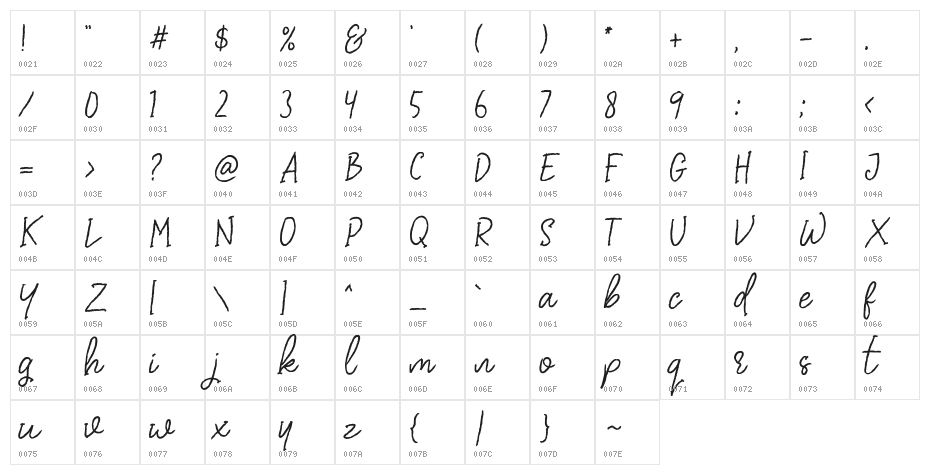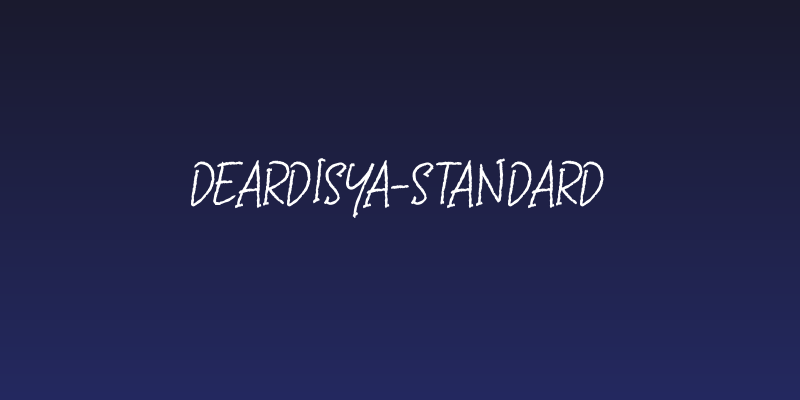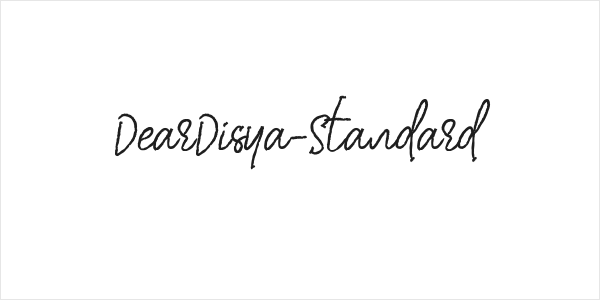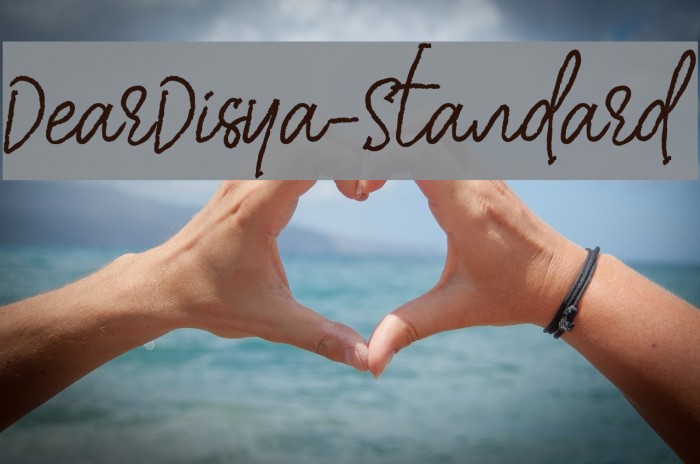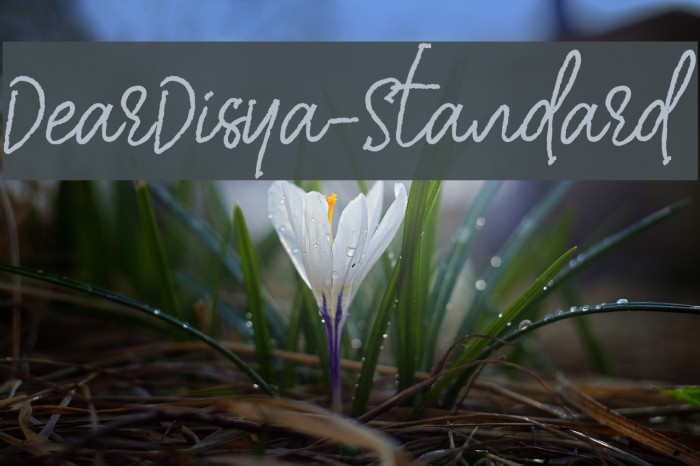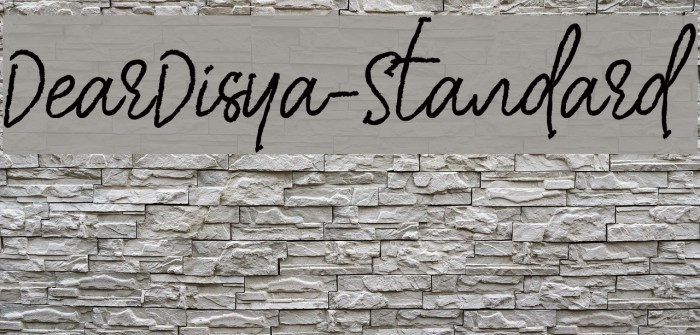
DearDisya-Standard Font
DearDisya-Standard Description
This font features a handwritten style with a casual and organic feel. The letters are slightly slanted, giving it a dynamic and lively appearance. The strokes are uneven, mimicking the natural flow of handwriting, which adds a personal touch to any text. The uppercase letters are bold and prominent, while the lowercase letters maintain a consistent flow. Numbers and special characters are designed to match the overall style, ensuring a cohesive look across all text elements. This font is ideal for projects that require a personal or informal touch, such as greeting cards, invitations, or creative branding.
| Overall Style | Casual, Organic |
| Use Case | Headlines, Logos, Informal text |
| Proposed Projects | Greeting cards, invitations, creative branding, personal notes. |